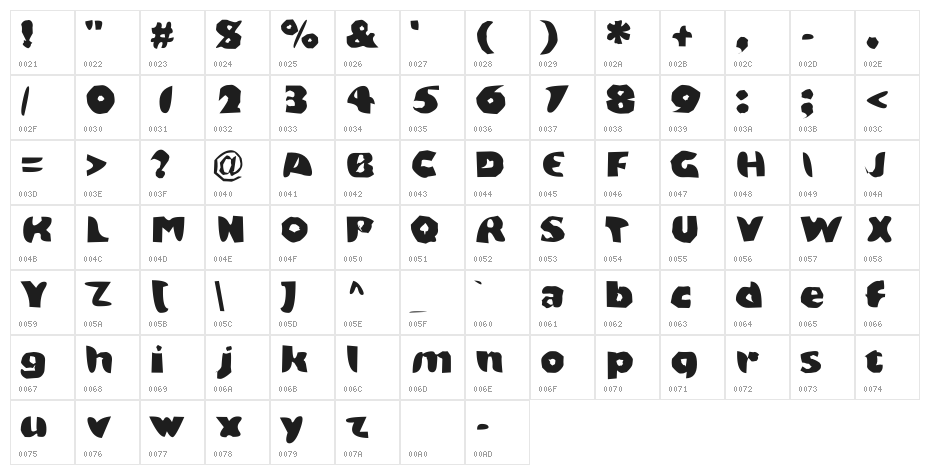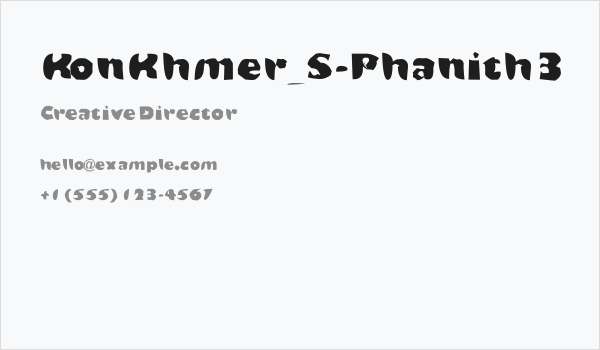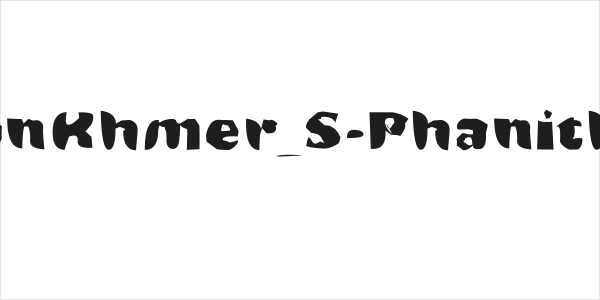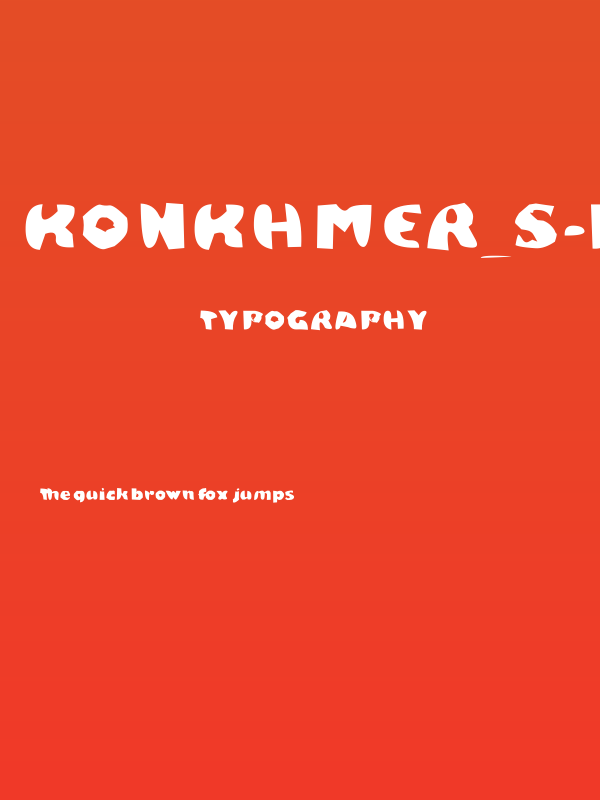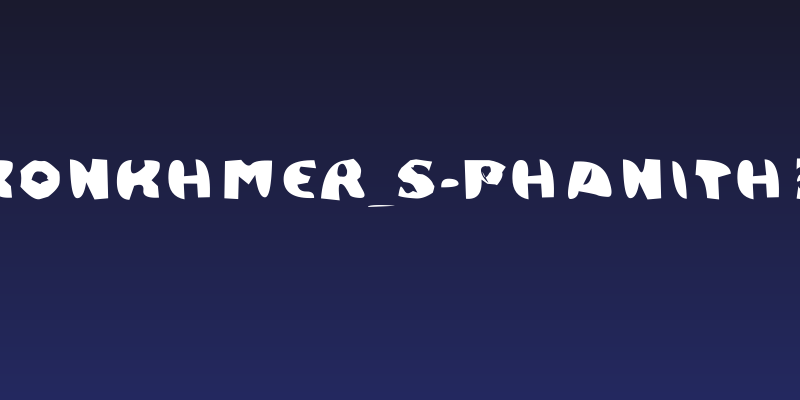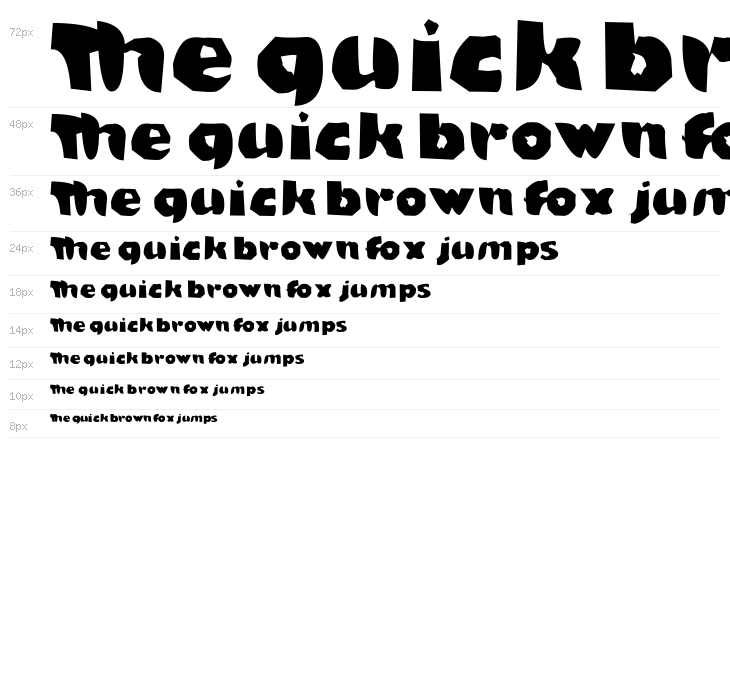
KonKhmer_S-Phanith3 Font
KonKhmer_S-Phanith3 Description
This font features a bold and dynamic style with a distinctively irregular and artistic appearance. The characters are heavily stylized, with thick strokes and unique shapes that give each letter a hand-crafted feel. The uppercase and lowercase letters maintain a consistent weight, contributing to a cohesive look. Numbers and special characters follow the same design principles, ensuring uniformity across all glyphs. The font's playful and creative design makes it stand out, offering a visually striking option for various design projects.
| Overall Style | Artistic, Playful |
| Proposed Projects | Ideal for creative projects such as posters, album covers, branding, and artistic displays. |